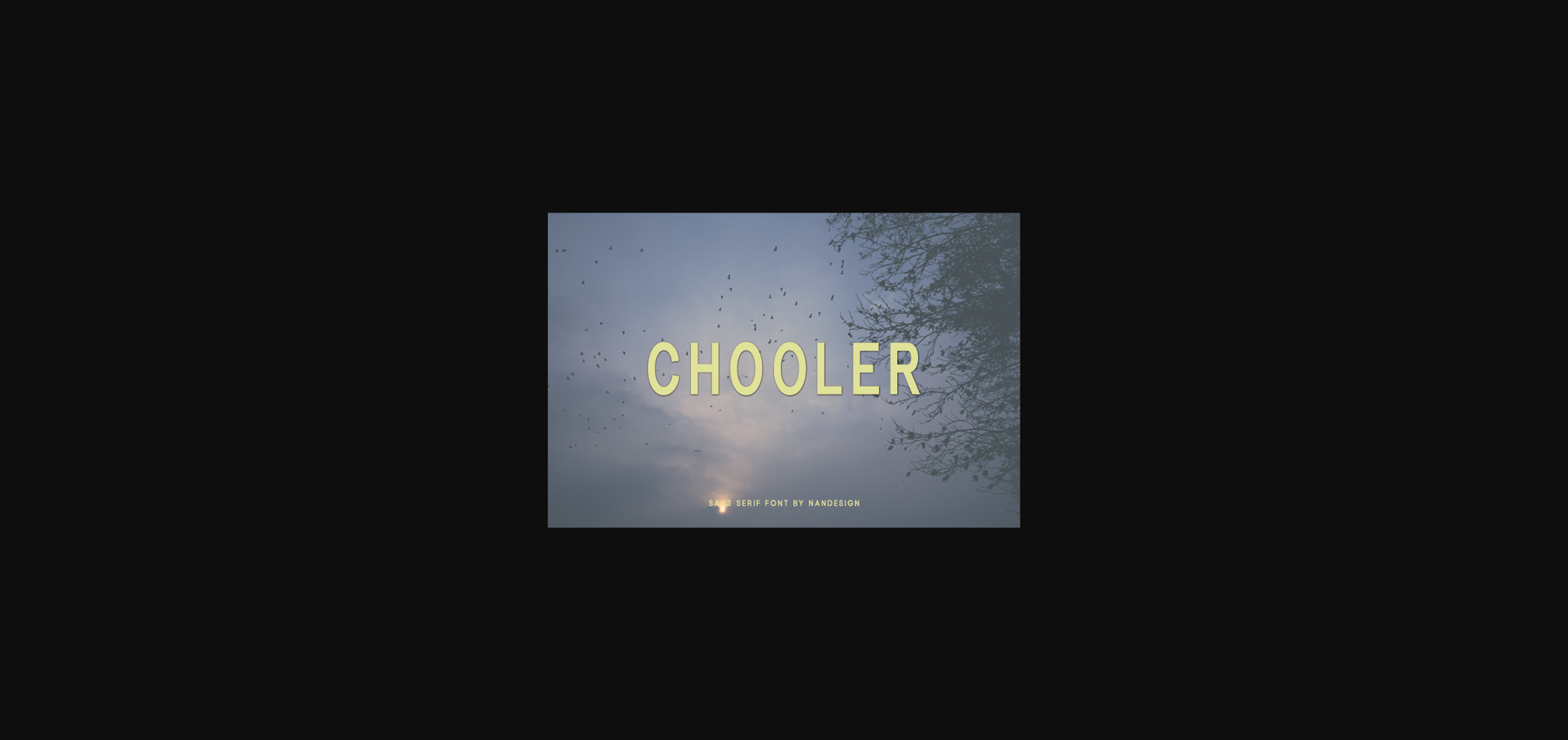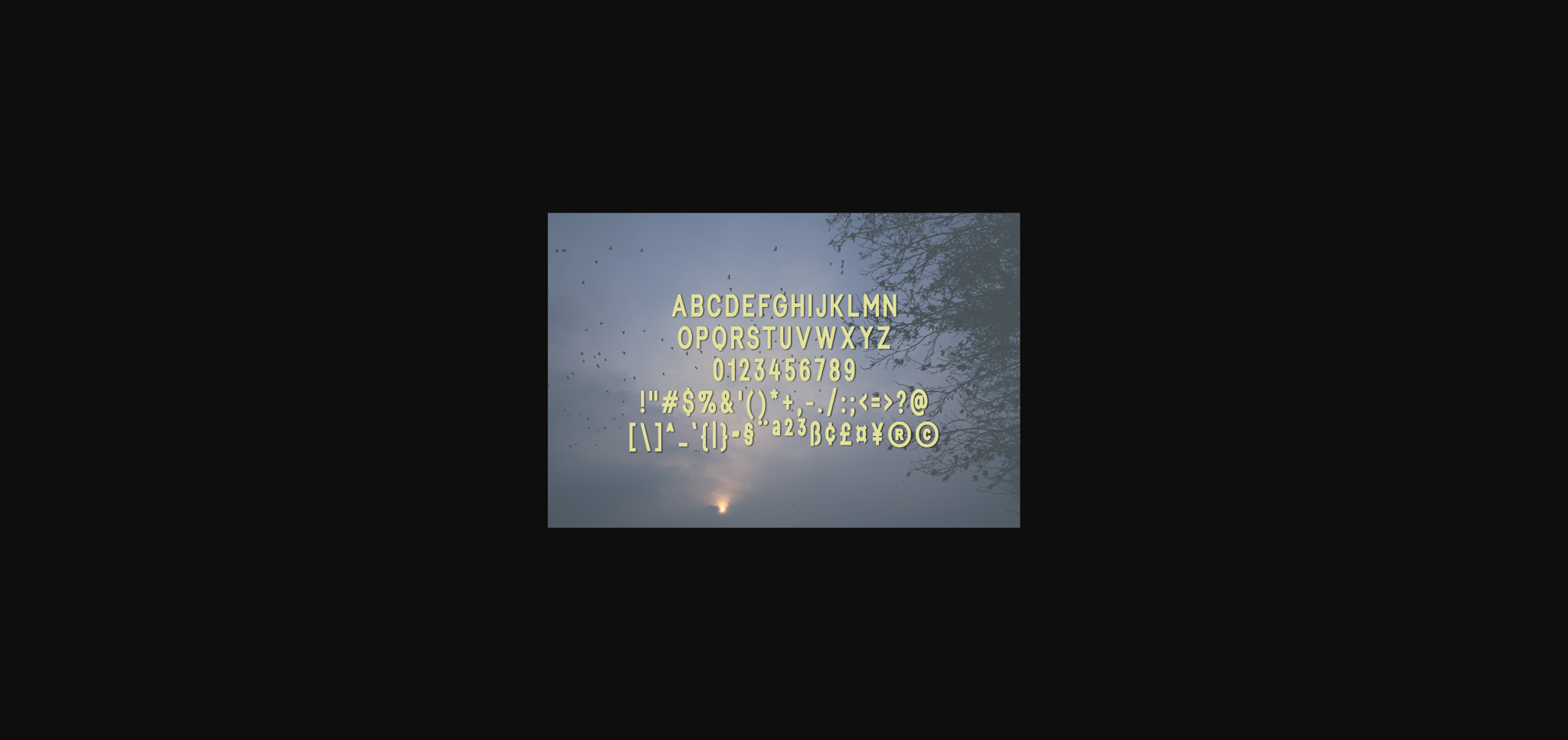
About Chooler Font
Chooler is an all round and fresh sans serif font. It can easily be matched to an incredibly large set of projects, so add it to your creative ideas and notice how it makes them stand out!